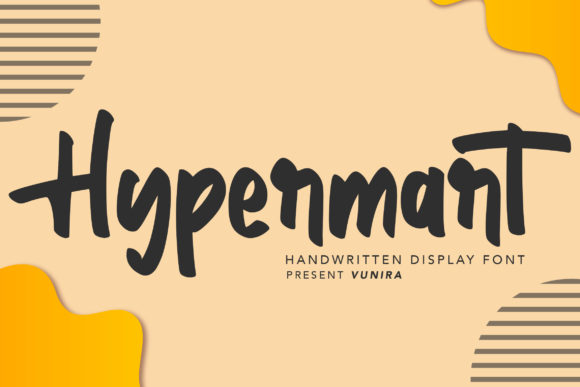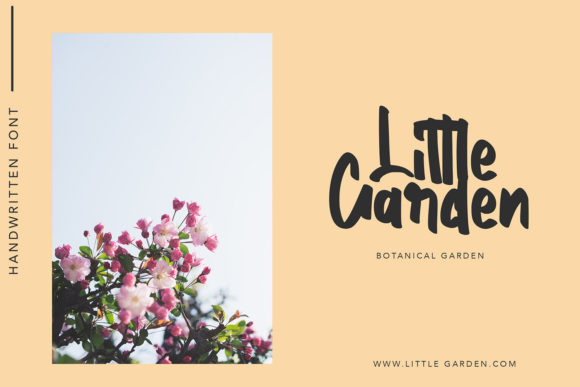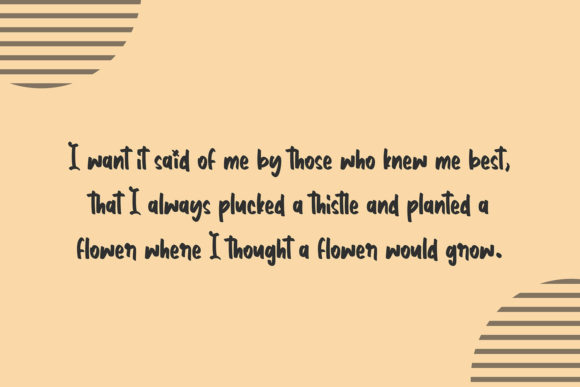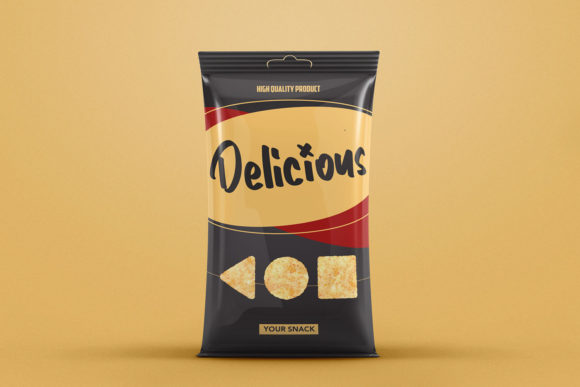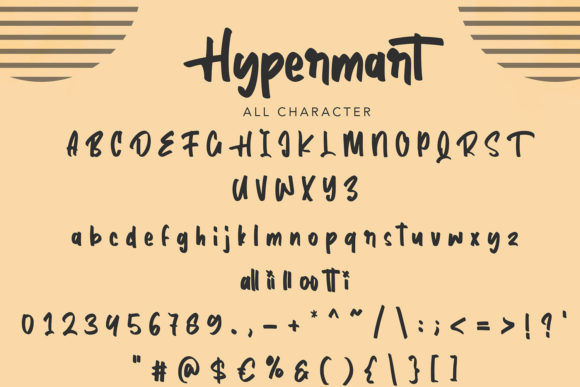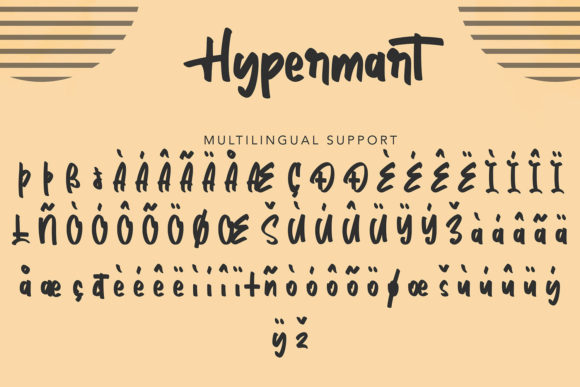
Hypermart Font
About Hypermart Font
Hypermart is a sweet and friendly handwritten font. Its natural and unique style makes it incredibly fitting to a large pool of designs. The only limit is your imagination!